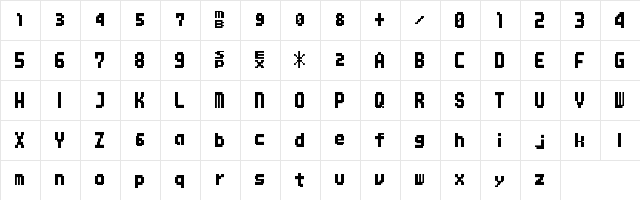
MMBNThick Regular
| Designer | Metroid345 |
Design Context for MMBNThick Typeface
MMBNThick takes a measured approach to typography — its balanced proportions and neutral character make it a reliable workhorse for both digital and print work.